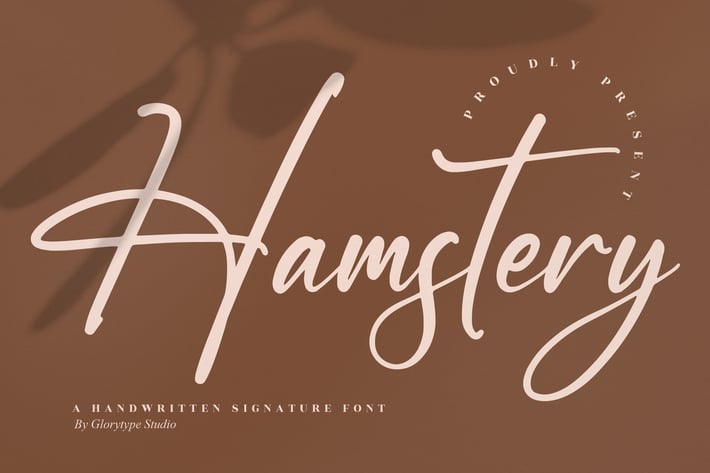
Hamstery Handwritten Signature Font
Hamstery is a sleek, handwritten signature script with long, fluid strokes and a natural pen feel. Its refined rhythm, soft curves, and tasteful swashes bring effortless elegance to logos, packaging, cards, and social graphics. Use Hamstery whenever you want a personal touch that still looks polished and modern.
+ Smooth, flowing signature letterforms
+ Uppercase, lowercase, numerals & punctuation
+ Useful alternates/ligatures for organic handwriting
+ Clean spacing and refined kerning for professional results
+ Wedding stationery & save-the-dates
+ Logos, brand marks & monograms
+ Social media posts & quote graphics
+ Product packaging & labels
+ Business cards & thank-you cards
+ Posters & flyers
+ Invitations & greeting cards
+ Fashion/beauty promos
+ Photography watermarks & blog headers
Write it with effortless elegance.